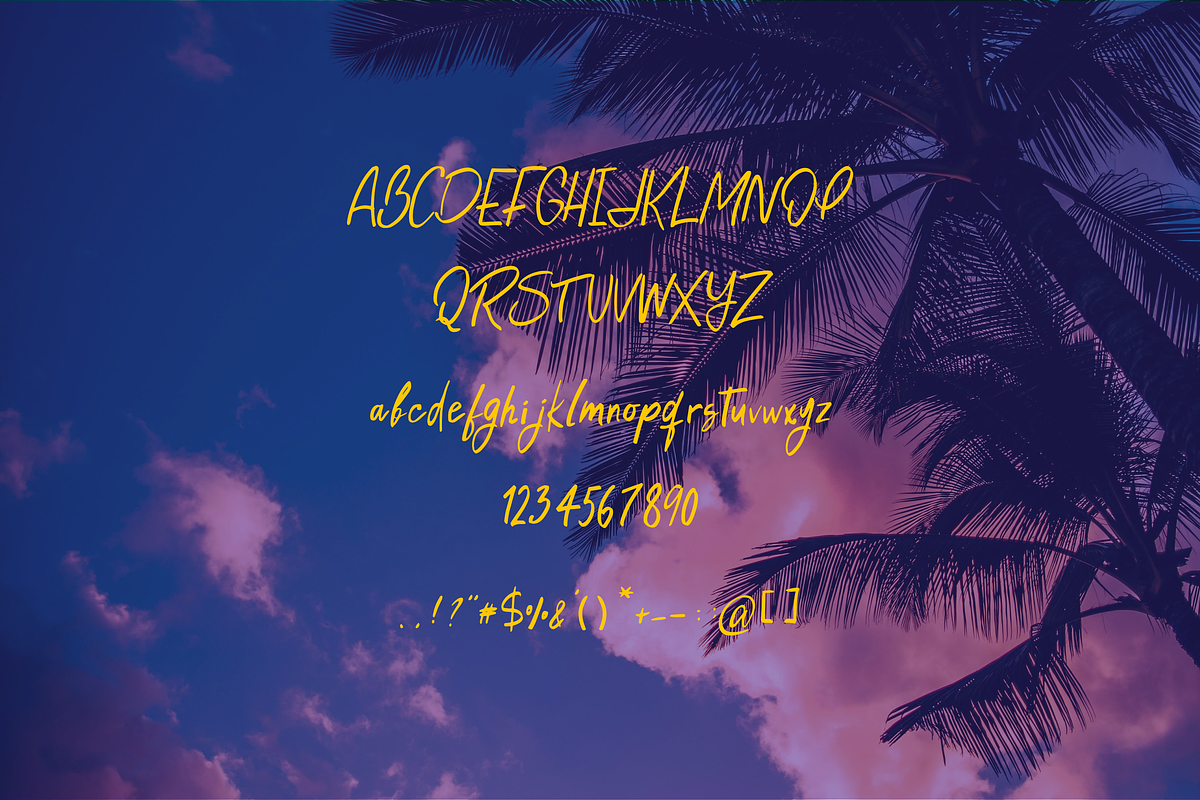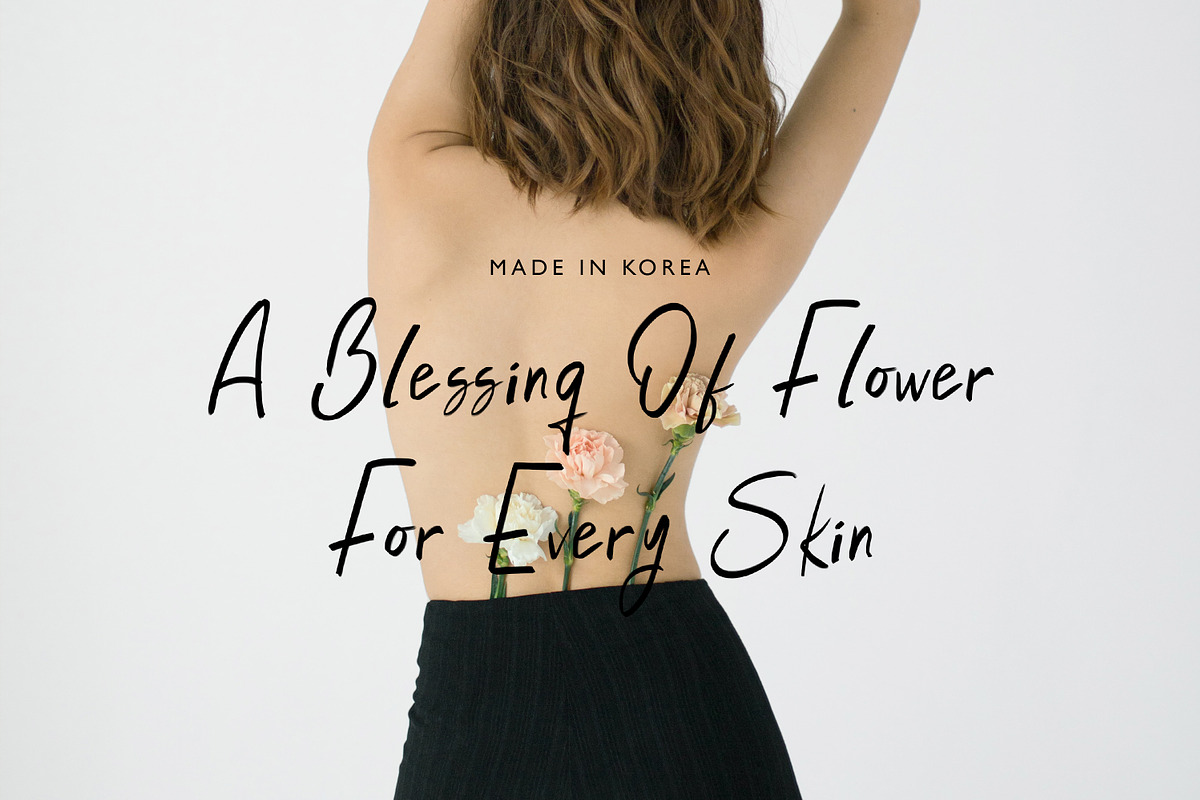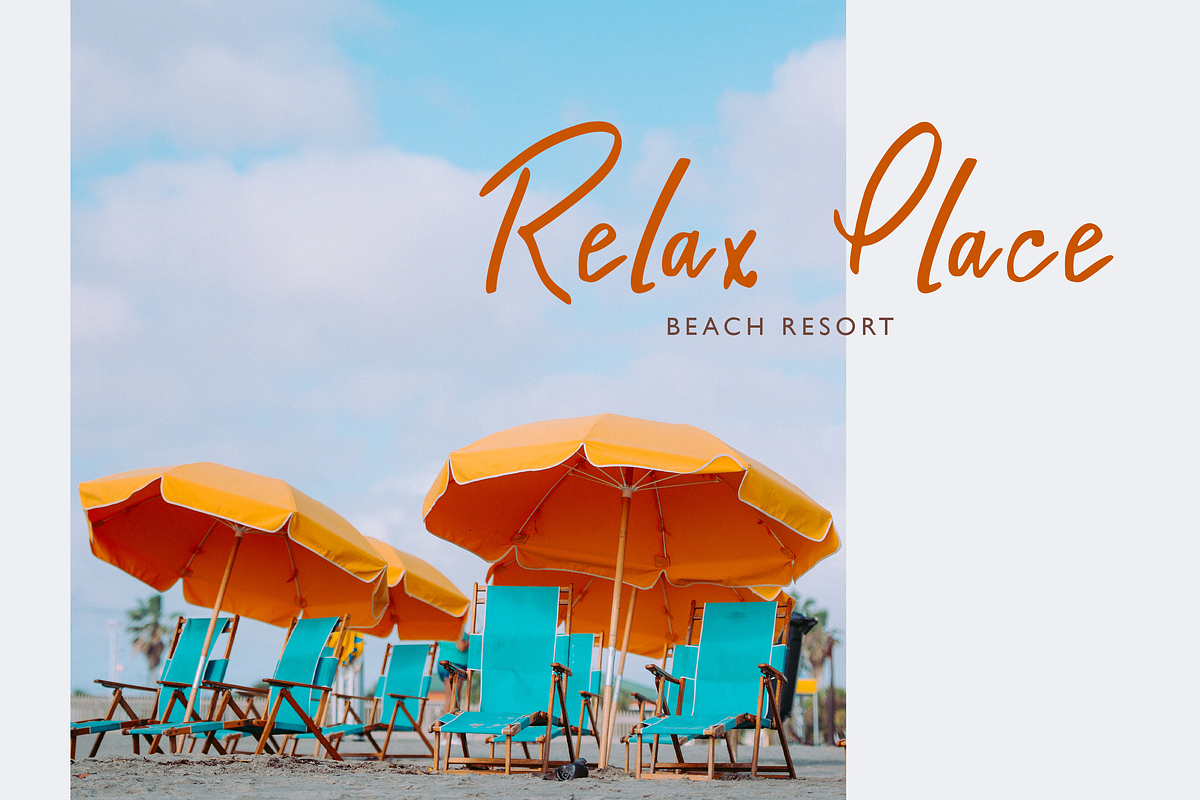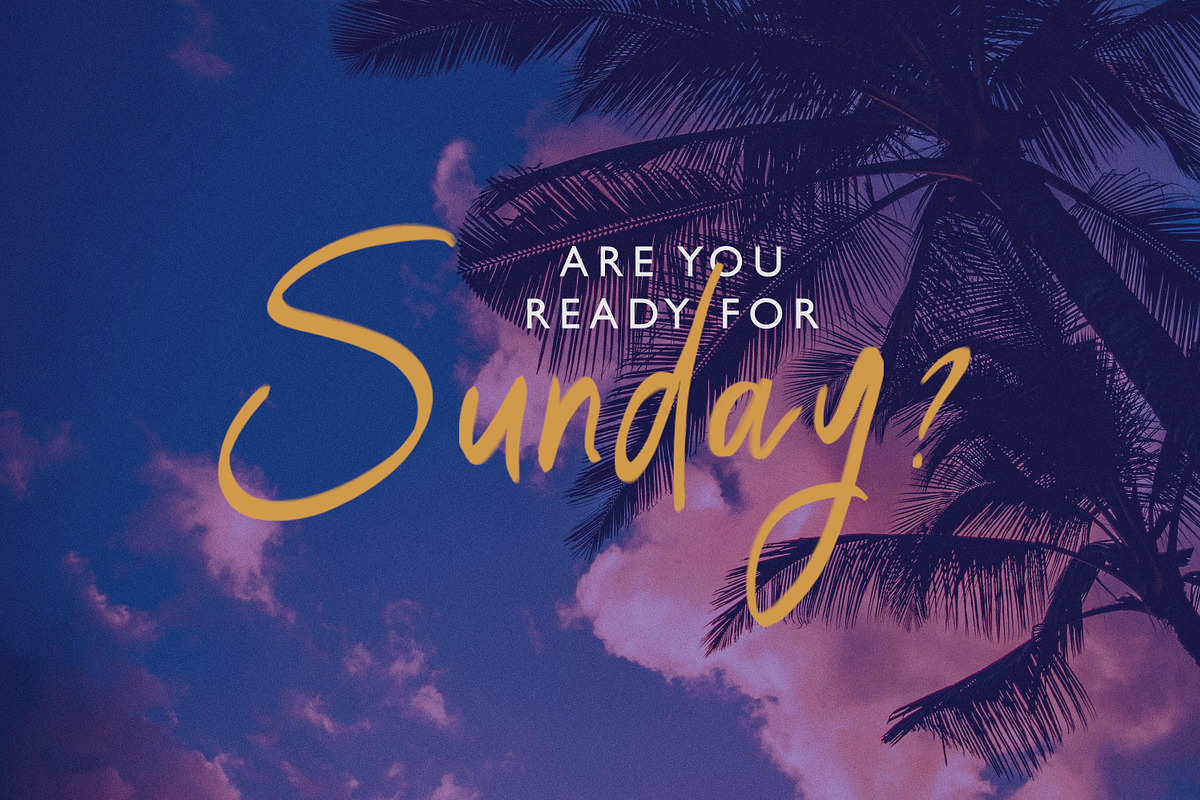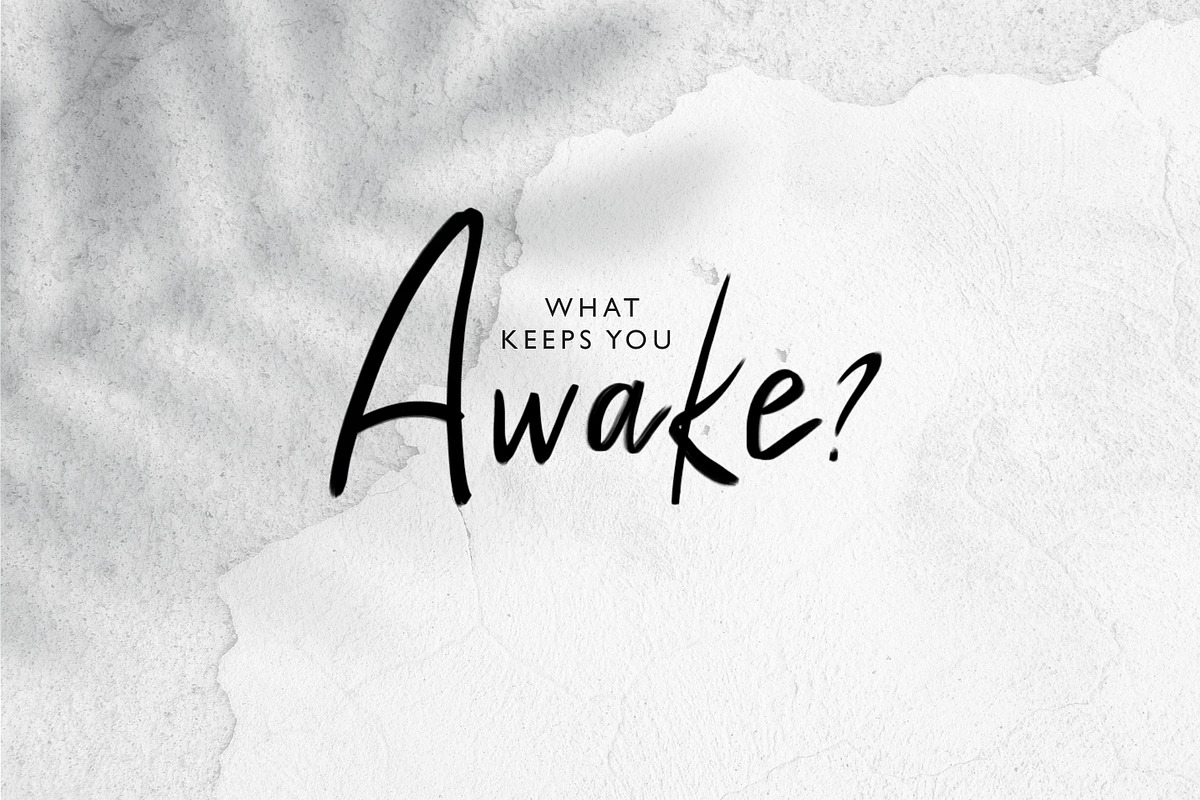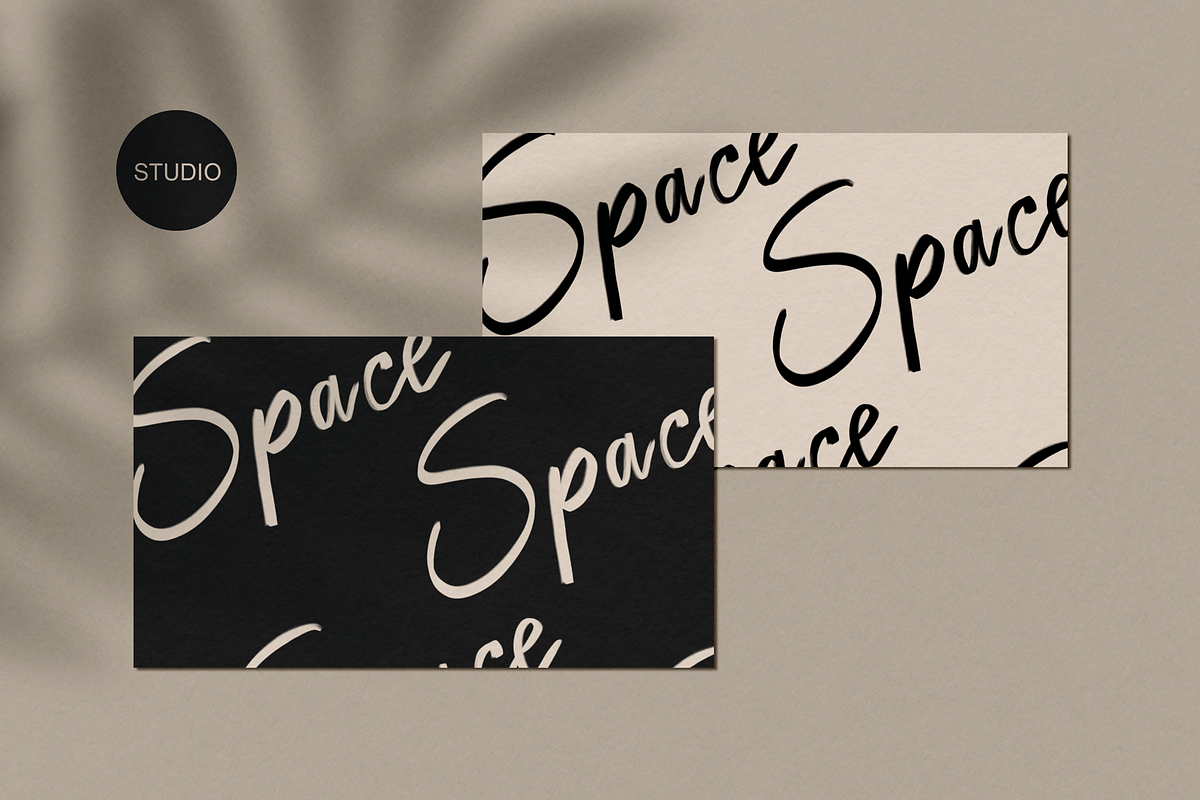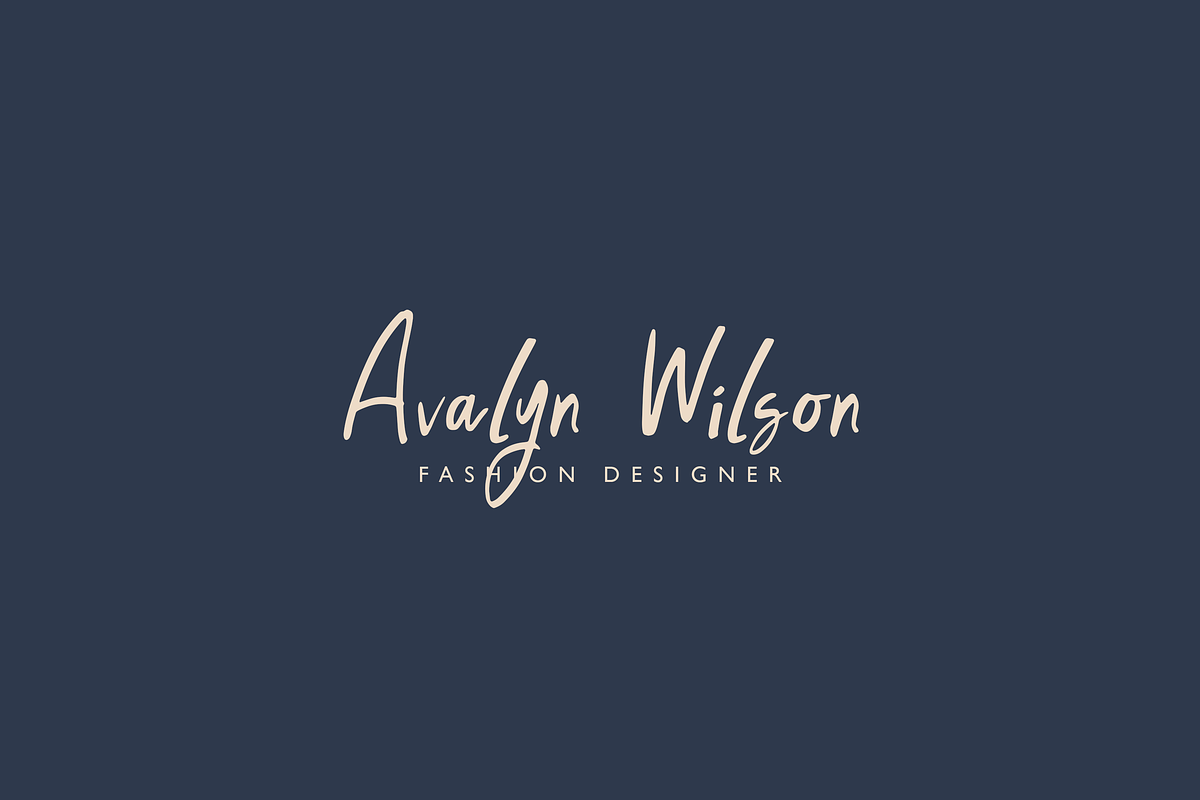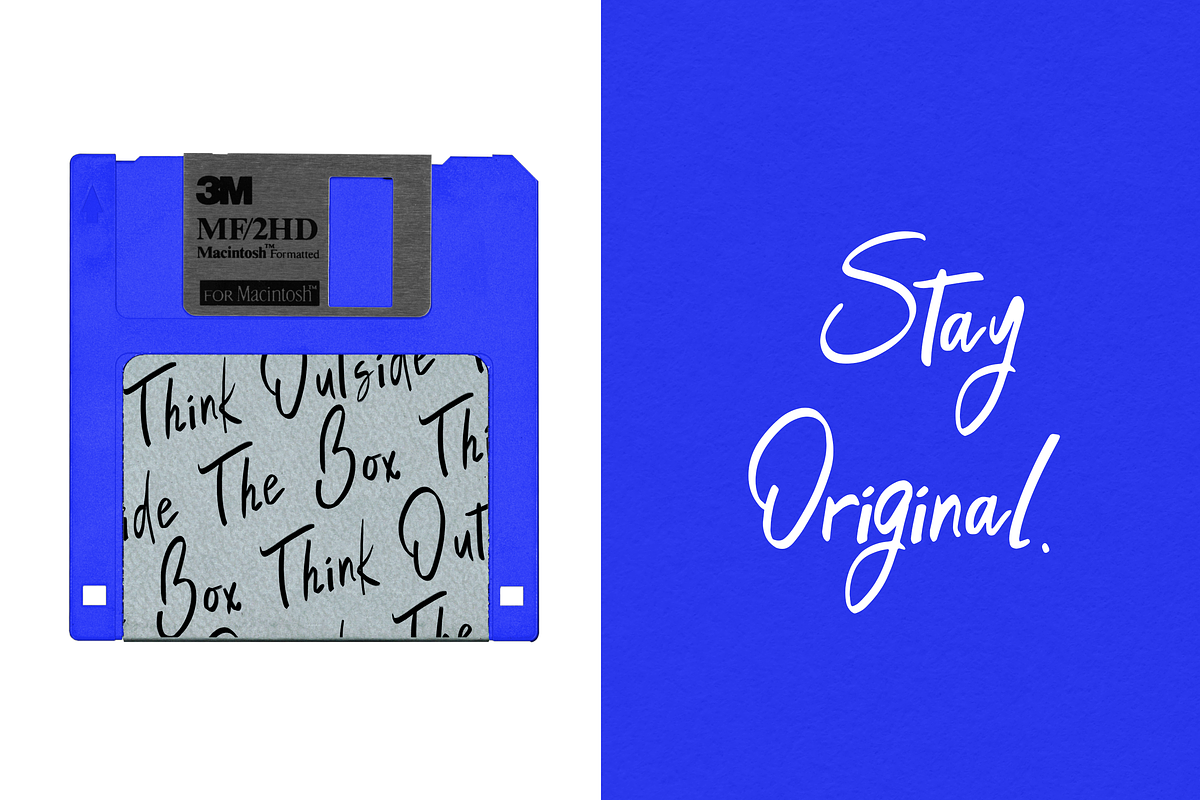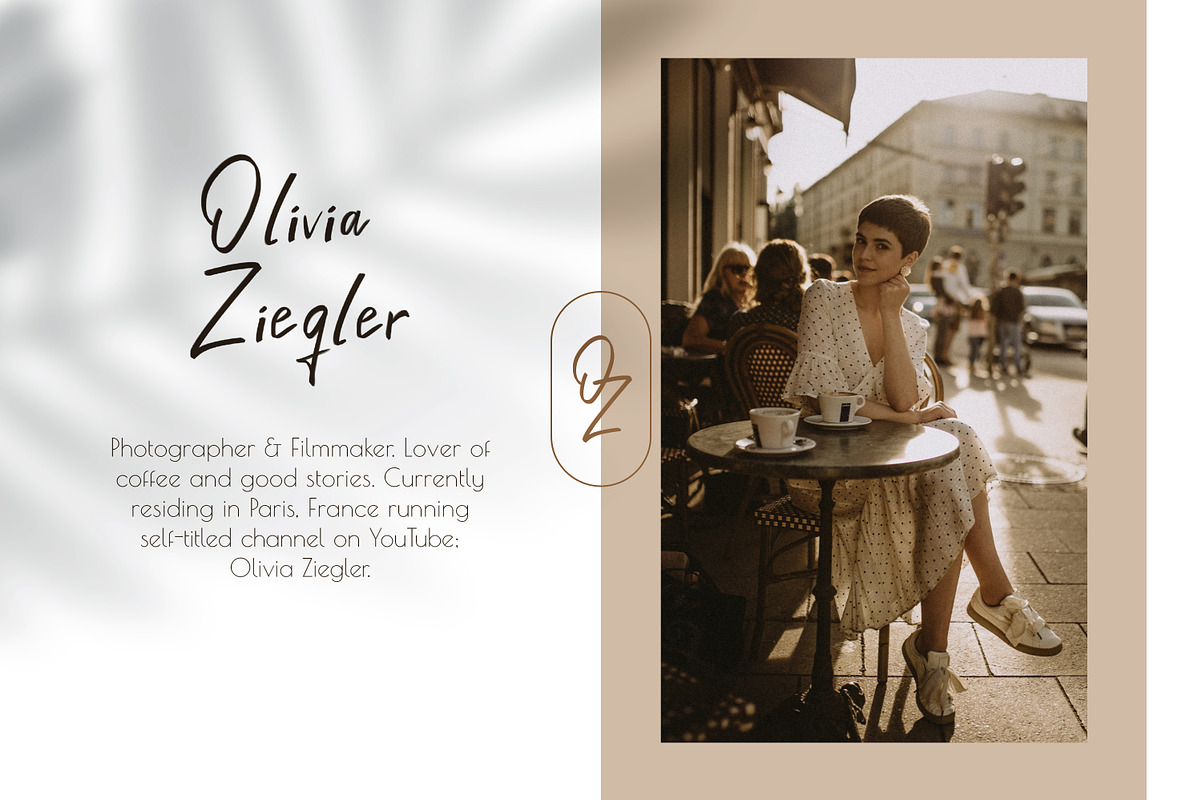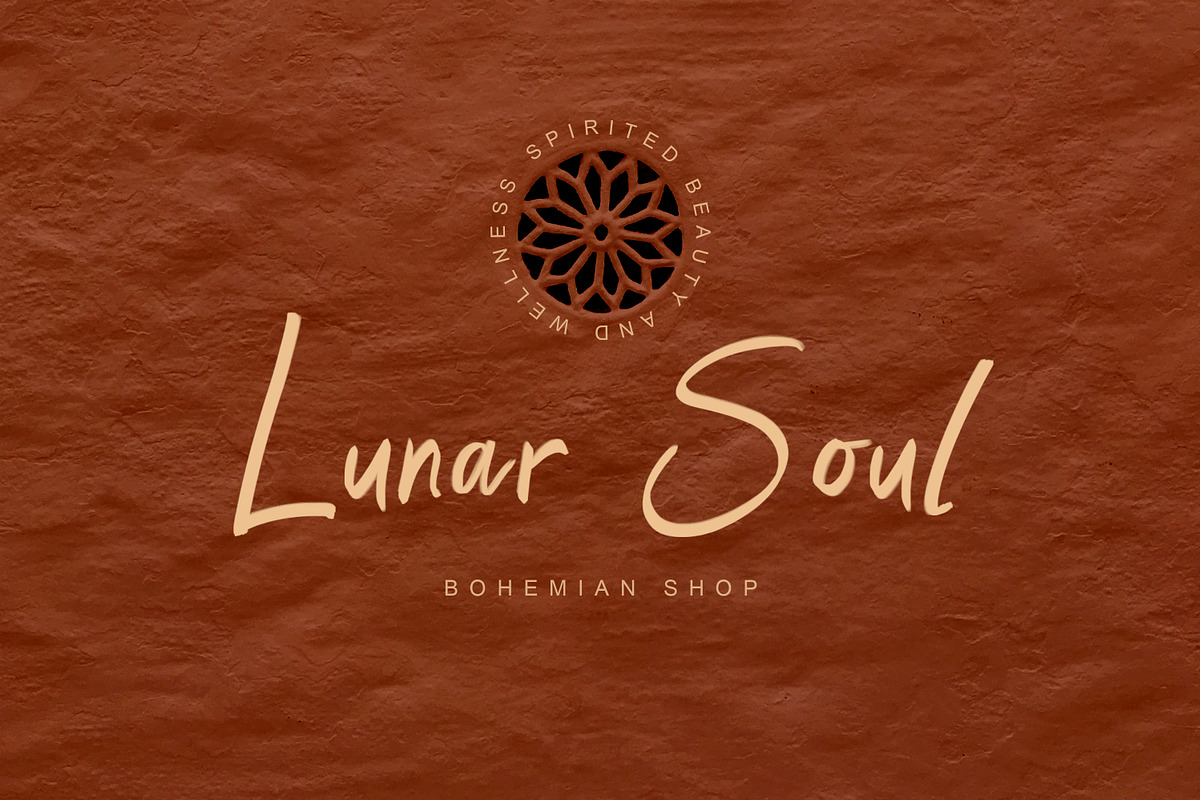
Palmer Handwritten Script
Palmer is a casual handwritten script font with a warm tropical feel. It is perfect for logos, branding, wedding designs, social media graphics, packaging, quotes, invitations, Cricut projects, and stylish digital products.
This font has a natural hand-drawn look with smooth, expressive letterforms that make your designs feel personal, relaxed, and creative.